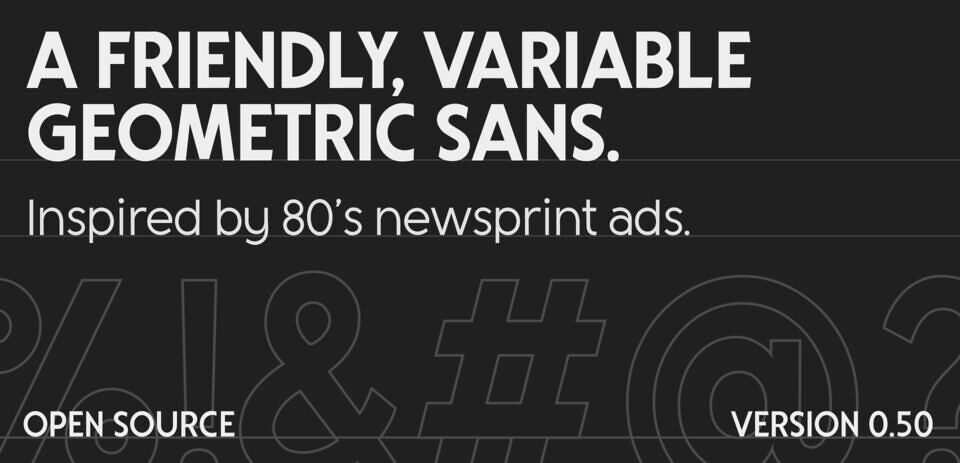
Television Sans is a variable, friendly geometric sans, inspired by newsprint ads from the 1980s. Designed by Sam Mularczyk, this font is a perfect combination of retro-futuristic charm and modern-day legibility.
It’s a great choice for projects that require a pinch of retro style and a whole lot of legibility. This open-source font family is a real gem that adds a sharp and analog-like personality to your designs, clean and crisp, and precisely what you need for your modern-day projects.